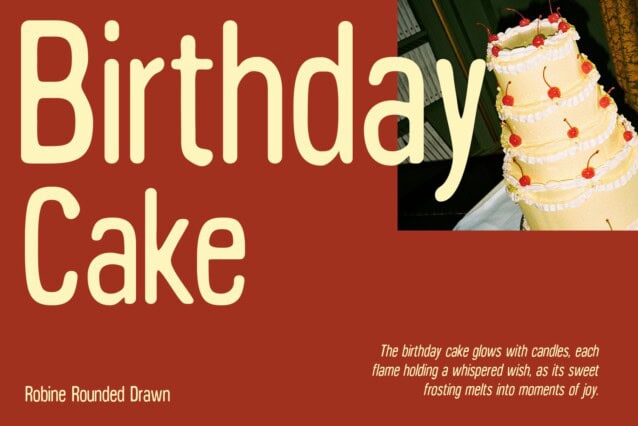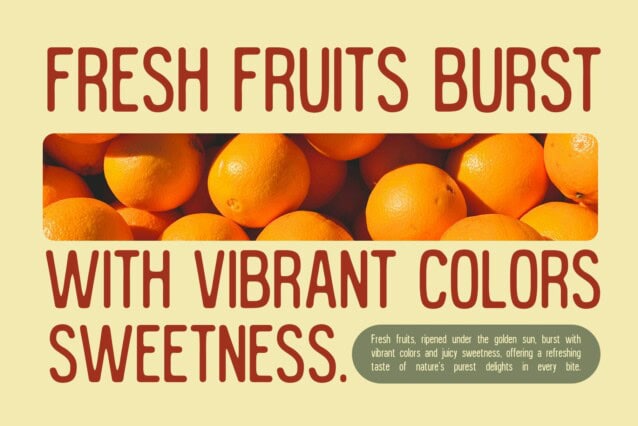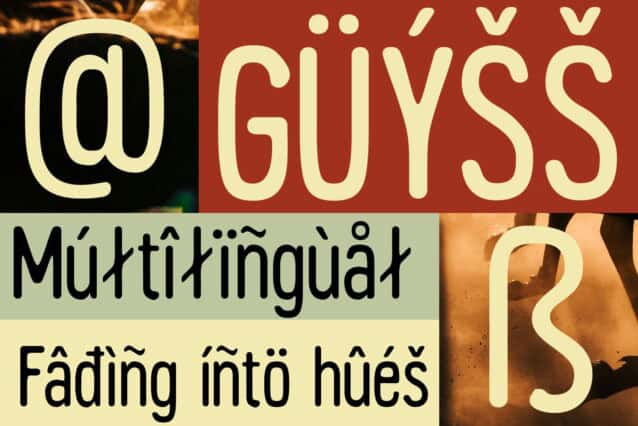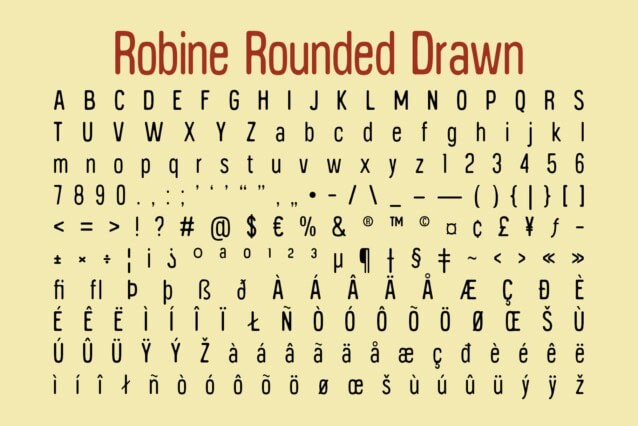
Robine Rounded Drawn Font
Robine Rounded Drawn Font is a modern sans-serif font featuring a condensed and rounded design with a hand-drawn texture. This unique combination blends sleek, smooth curves with an artistic and organic touch, creating a font that feels both modern and expressive.